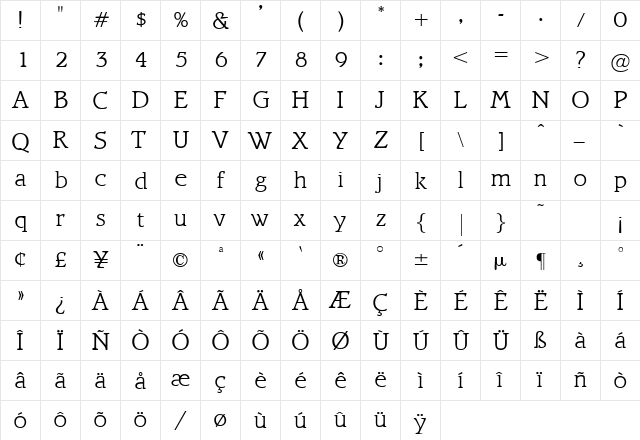
Barber Regular
Design Context for Barber Typeface
Barber takes a measured approach to typography — its balanced proportions and neutral character make it a reliable workhorse for both digital and print work.